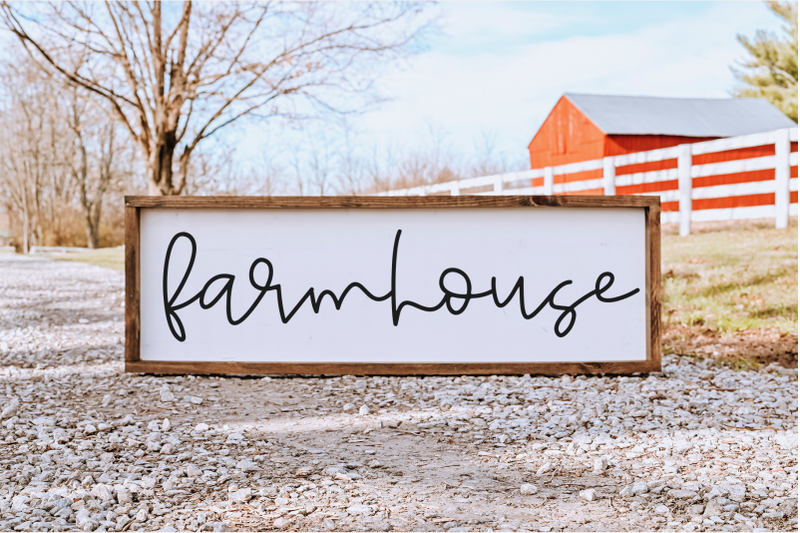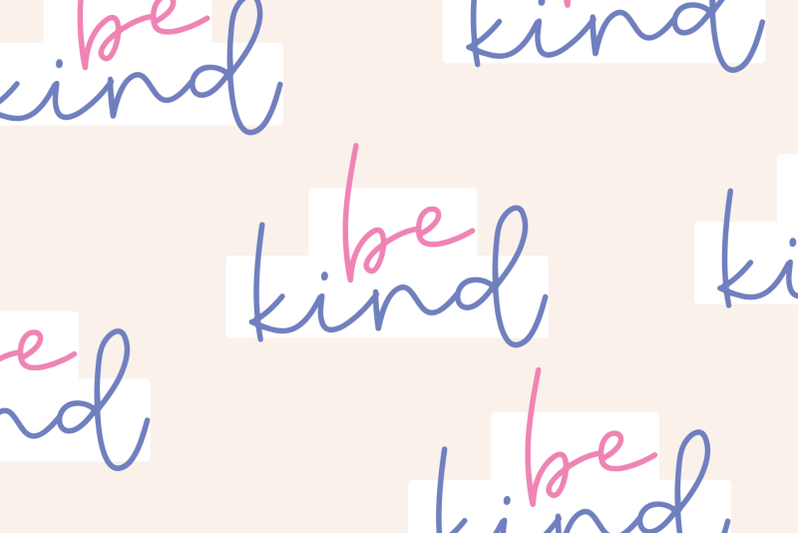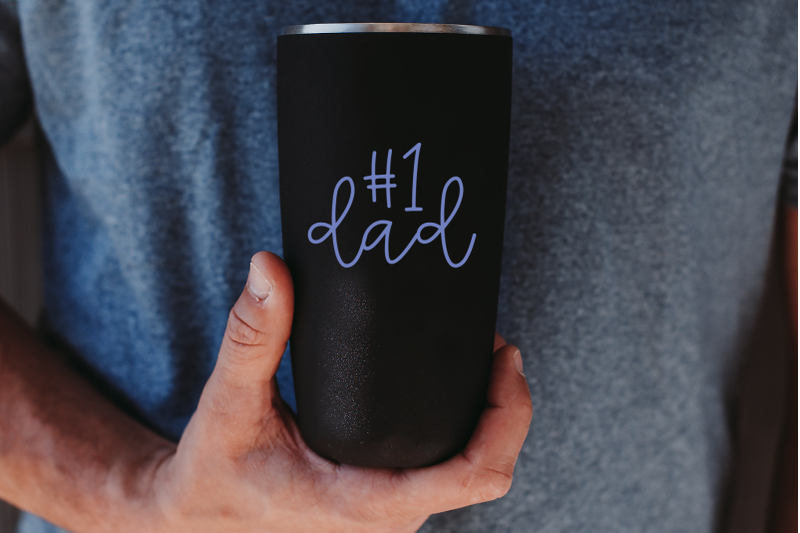
Freebie Wednesday: Free Asteroid Font
Asteroid, a free Handwritten Script Font!
It is perfect for quotes, headings, blogs, logos, brandings, invitations and more! This item includes a TTF & OTF font file. You will be able to use this font in ANY program!